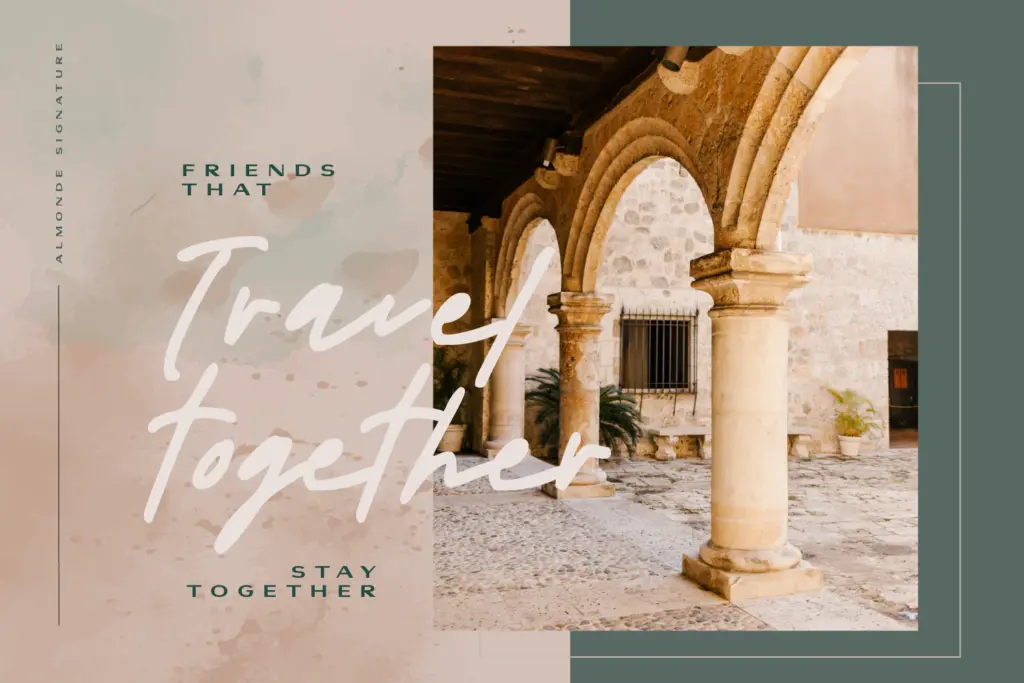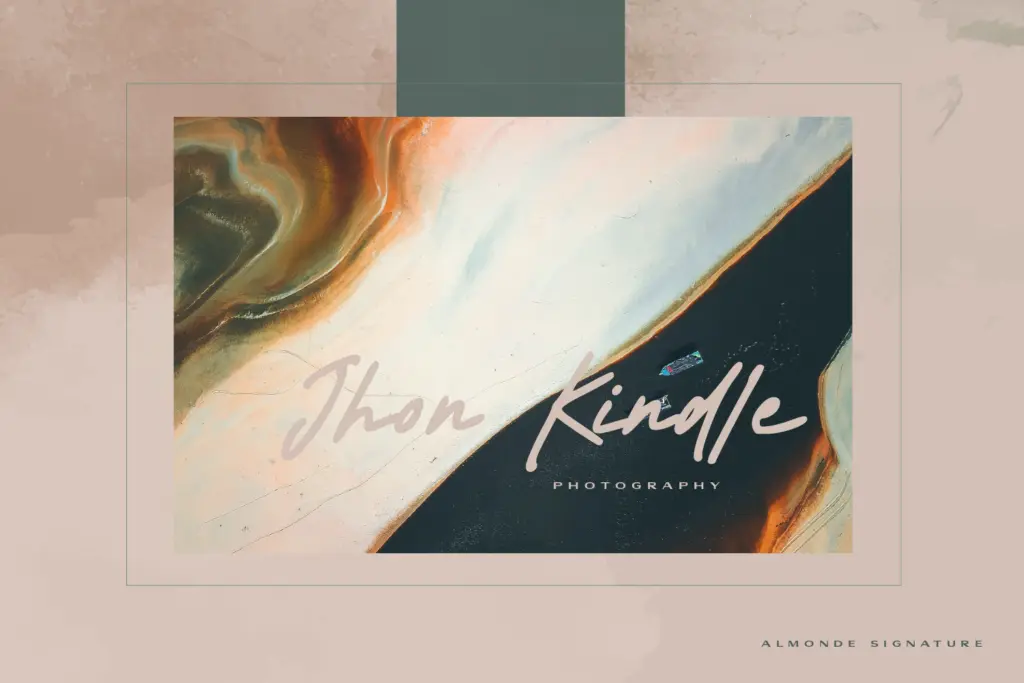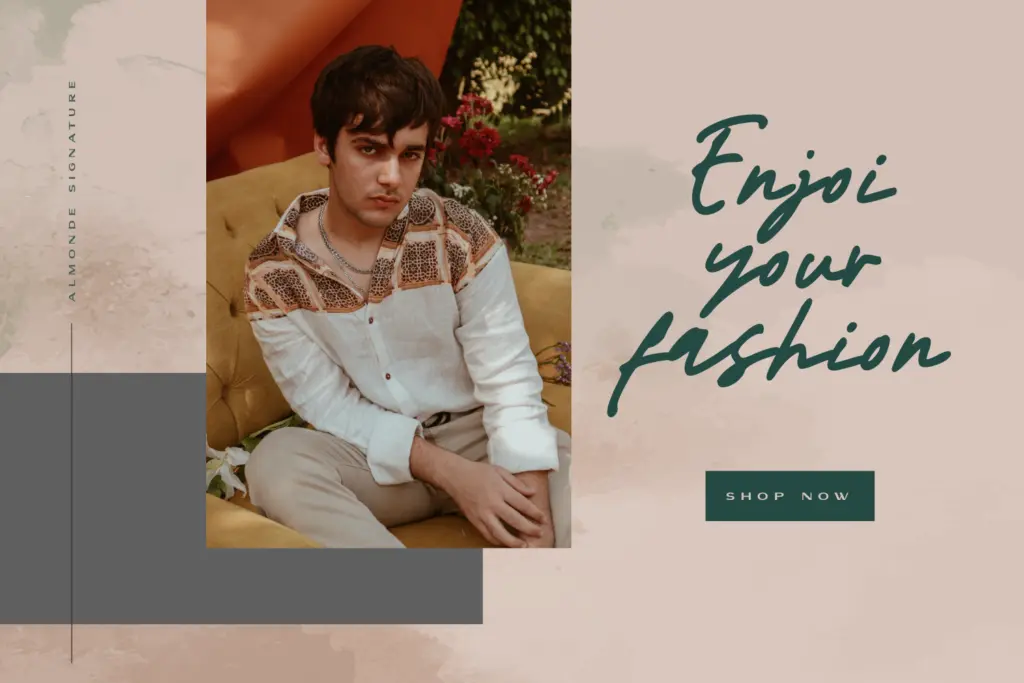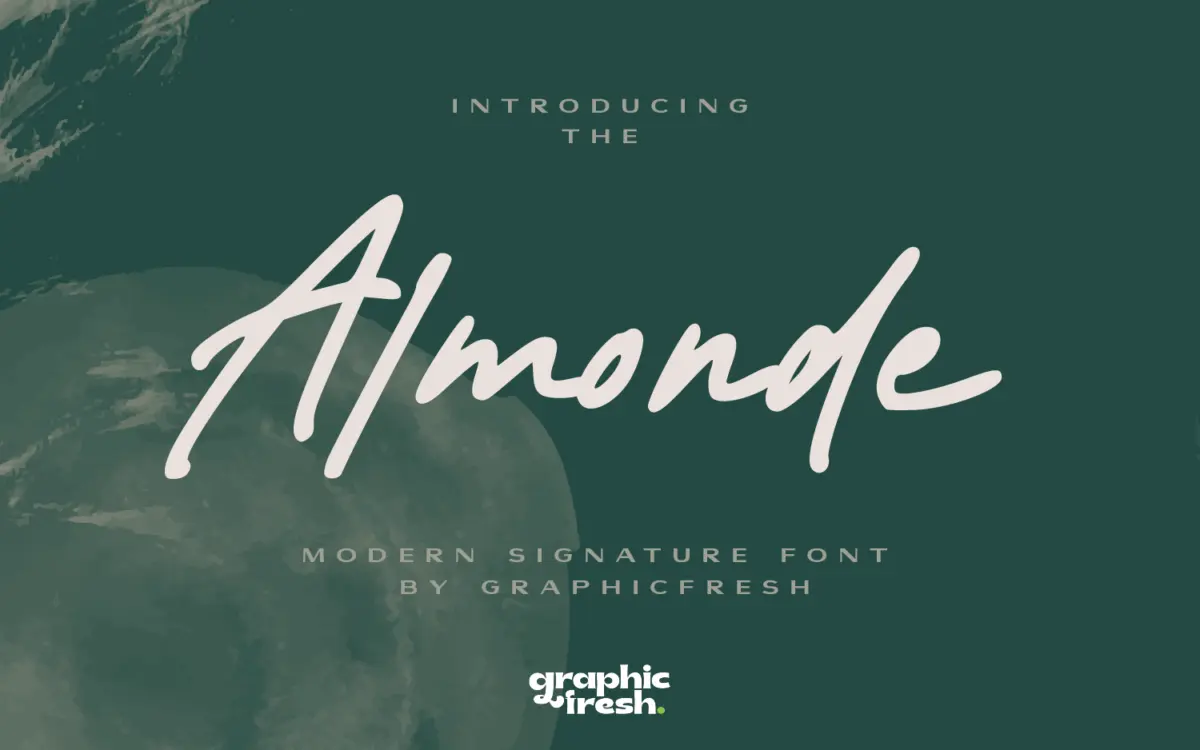
Almonde belongs to the crowded family of casual signature scripts that have flooded the market in recent years, but it holds together better than most of its peers. The strokes are monoline, with a felt-tip looseness rather than the tapered contrast you get in pointed-pen scripts. Letters lean forward at a moderate angle, joins are loose rather than tightly connected, and there’s a slight wobble to the baseline that reads as handwriting rather than as a vector trace of handwriting. It doesn’t try to look luxurious in the way a copperplate revival does. It aims for the quick, confident signature look — the kind of mark you’d sign off a logo lockup or a certificate with, not a formal invitation suite.
The x-height sits comfortably mid-range, and ascenders and descenders swing out with enough flourish to give the font some personality without descending into illegibility. It’s a font with a point of view, even if that point of view isn’t especially rare in this genre.
Almonde covers uppercase and lowercase, numerals, and standard punctuation, plus PUA encoding so the extended glyph set is reachable without an OpenType-aware app. That matters here, because a script font’s worth is often in its alternates and swash variants, and PUA access means users of basic software like Word or Canva can still get at them. The brief doesn’t detail how many alternates exist or whether ligatures are included, so treat the character variety as a pleasant unknown rather than a promised feature — test the demo before committing a layout to it.
International language support is listed, which extends the font’s reach beyond a default Latin set, though again the specifics (which diacritics, which languages) aren’t spelled out. At smaller sizes the looser joins start to separate visually, so this isn’t a font built for body copy or dense paragraph setting — no script at this casual a register really is.
Almonde reads best as a signature element: a logotype, a monogram companion, a single line of copy on a business card or the top of a letterhead. It has enough visual energy to headline a poster or anchor a t-shirt print without needing much support. Wedding stationery is plausible too, particularly for couples who want something more relaxed than a formal calligraphic script — Almonde won’t read as fussy or vintage, which cuts both ways depending on what tone you’re chasing.
Where it struggles is in longer settings: quotes of more than a few words, or any use case that asks it to behave like a text face. The looseness that gives it character at large sizes becomes noise at small ones. Pair it with a plain sans or a clean serif for the supporting text, and keep Almonde itself to short bursts — a name, a word, a headline. Used that way, it does the job it’s built for without overreaching.
- PUA encoding makes alternates accessible in basic design software
- Loose, confident stroke has a natural handwritten quality rather than a traced look
- Works well at large sizes for logotypes and single-word branding marks
- Loose joins start to blur together at small sizes, limiting it for body text
- The style sits close to many similar signature scripts already on the market
Almonde is a competent casual signature script that does its best work in short, large-scale bursts — logos, monograms, headline moments. It's not a distinctive standout in a saturated category, and it isn't built for text setting, but for what it's designed to do it performs reliably.